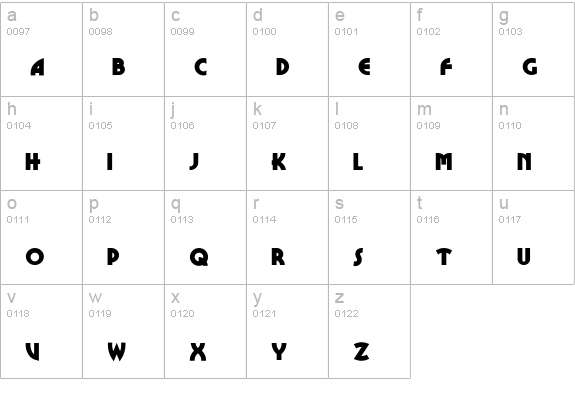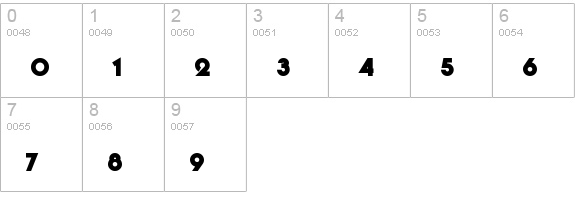
CameoAppearance Font Details
Introducing CameoAppearance font, a stunning typeface that exudes elegance and sophistication. With its intricate detailing and unique design, CameoAppearance is sure to make a bold statement in any project. This versatile font is perfect for branding, editorial design, and more. What sets CameoAppearance font apart is not only its striking appearance but also its accessibility. This font is available for free download at FontsMarket.com, making it easy for designers and creatives to access and use in their work. Whether you're looking to add a touch of glamour to your designs or make a statement with your typography, CameoAppearance font is the perfect choice. Download it today and elevate your projects with this exquisite typeface.